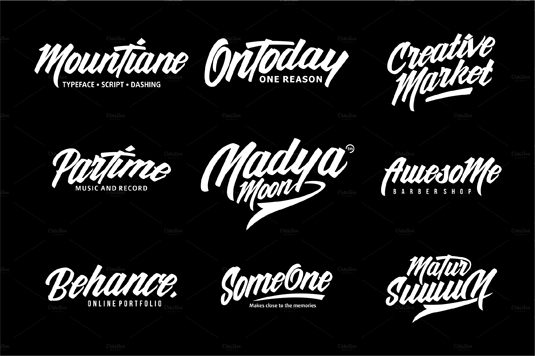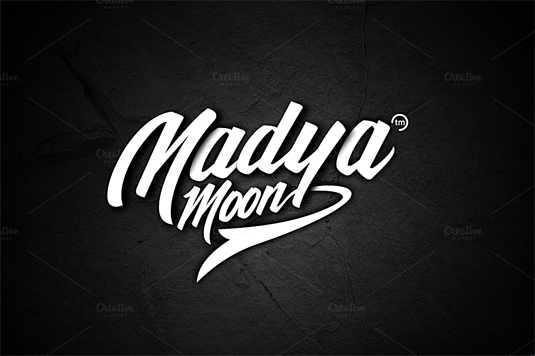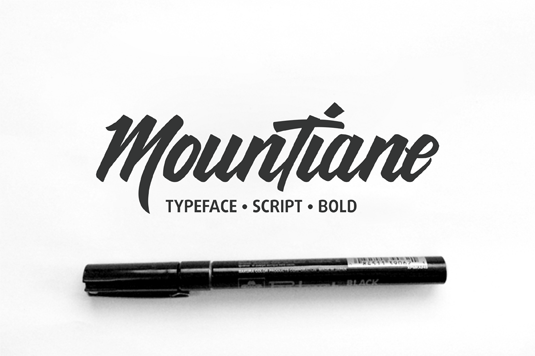
Font of the day: MounTiane
Each day of the week we showcase our favourite fonts – today it's MounTiane by Adil Budianto.
MounTiane by Adil Budianto
Today's showcased typeface is MounTiane, created by Adil Budianto. MounTiane is a script typeface inspired by the Magic Marker, making it ideal for creating a simple logotype, but is also useful for flyers and could even be used as a graffiti font.